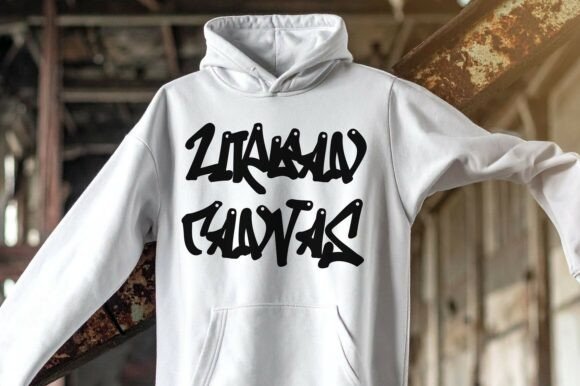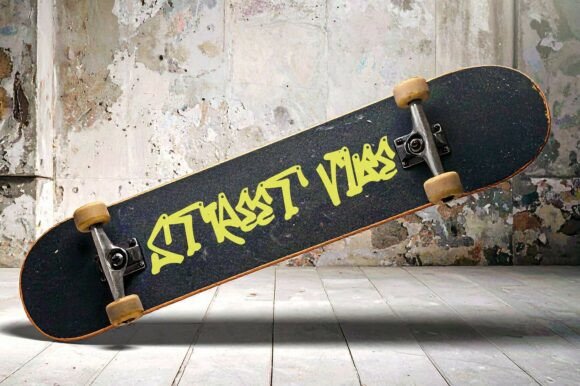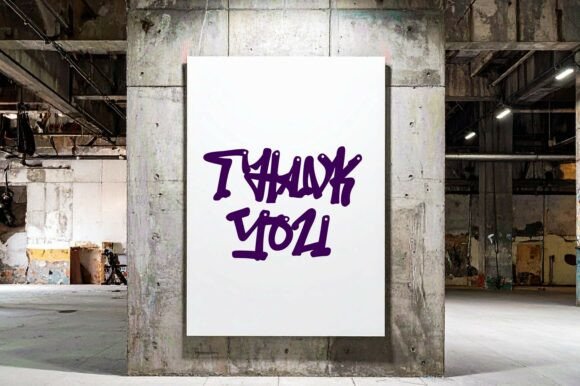
Unleash the Urban Energy with Arena Graffiti Font
Remember the rush of capturing the perfect street art shot, the thrill of discovering an abandoned wall turned canvas, or the excitement of watching a graffiti artist bring a blank space to life? That’s what the Arena Graffiti Font embodies – the raw energy and urban artistry of street graffiti, distilled into a dynamic and rebellious display font.
Whether you’re a designer looking to add an edgy touch to your next project or a brand seeking to tap into the vibrant spirit of street culture, the Arena Graffiti Font is your perfect companion. Its bold, impactful letterforms and distinctive hand-painted aesthetic will captivate your audience and leave a lasting impression.
With its confident, unbridled spirit and versatility, the Arena Graffiti Font is an invaluable addition to any designer’s toolkit. Perfect for streetwear branding, music album art, event posters, and more, this font will help you create designs that demand attention and convey an authentic, street-wise vibe.
Arena Graffiti Font Key Features
- Font Style: Graffiti, Display Font
- Character Set: Latin, Cyrillic, Greek, Extended Characters
- Unique Characteristics: Hand-drawn, Distressed, Edgy, Perfect for Street Art and Urban Designs
Arena Graffiti Font Review
Overall, I think Arena Graffiti Font is an interesting choice for designers who want to add a bit of edginess to their projects. ✨ It’s definitely not for everyone, but for the right project, it could be a great fit.
- Unique style that’s perfect for street art or urban-themed designs
- Lots of character variations to keep things interesting
- Works well in bold or italic weights for added emphasis
- May be difficult to read for certain audiences due to its casual, handwritten feel
- Not suitable for projects that require a more formal or traditional look
- May require additional styling to ensure it’s legible at smaller font sizes
Arena Graffiti Font is a fun, energetic choice that’s sure to add some personality to your designs. While it may not be the best fit for every project, it’s a great option for designers who want to push the boundaries of traditional typography.
Just be aware of its limitations, and don’t be afraid to experiment with different styles and combinations to get the most out of this font.
Using the Font Effectively
To get the most out of the Arena Graffiti font, consider the following tips:
- Use bold text to create a striking visual impact.
- Experiment with different font sizes to create a dynamic layout.
- Combine with other bold, graffiti-style fonts for a cohesive look.
The Arena Graffiti font is ideal for:
- Music festival or concert promotions.
- Streetwear or urban-themed designs.
- Event or party invitations.
Alternatives to Arena Graffiti Font
Great Vibes is a beautiful, elegant script font perfect for creating a vintage or retro feel. It features flowing lines, intricate details, and a wide range of styles. Great Vibes is ideal for use in wedding invitations, advertisements, and any project requiring a touch of sophistication.
Great Vibes compares to Arena Graffiti Font in that it also has a handwritten feel, but it’s much more refined and polished. While Arena Graffiti Font is bold and playful, Great Vibes is elegant and sophisticated.
2. Dancing Script
Dancing Script is a lively, energetic script font that’s perfect for creating a sense of excitement and movement. It features flowing lines, dynamic flourishes, and a wide range of styles. Dancing Script is ideal for use in event invitations, advertisements, and any project requiring a touch of energy.
Dancing Script compares to Arena Graffiti Font in that it also has a dynamic feel, but it’s more energetic and playful. While Arena Graffiti Font is bold and edgy, Dancing Script is lively and carefree.
Carolyna Pro is a modern, elegant script font that’s perfect for creating a sense of luxury and sophistication. It features flowing lines, intricate details, and a wide range of styles. Carolyna Pro is ideal for use in high-end branding, advertising, and any project requiring a touch of elegance.
Carolyna Pro compares to Arena Graffiti Font in that it also has a refined feel, but it’s much more polished and sophisticated. While Arena Graffiti Font is bold and playful, Carolyna Pro is elegant and refined.
Q: Does Arena Graffiti support Unicode characters?
Arena Graffiti supports a wide range of Unicode characters, including Latin, Cyrillic, and Greek alphabets. However, it may not support all Unicode characters, especially those that require complex ligatures or diacritical marks. For best results, use the font in applications that support OpenType or TrueType fonts.